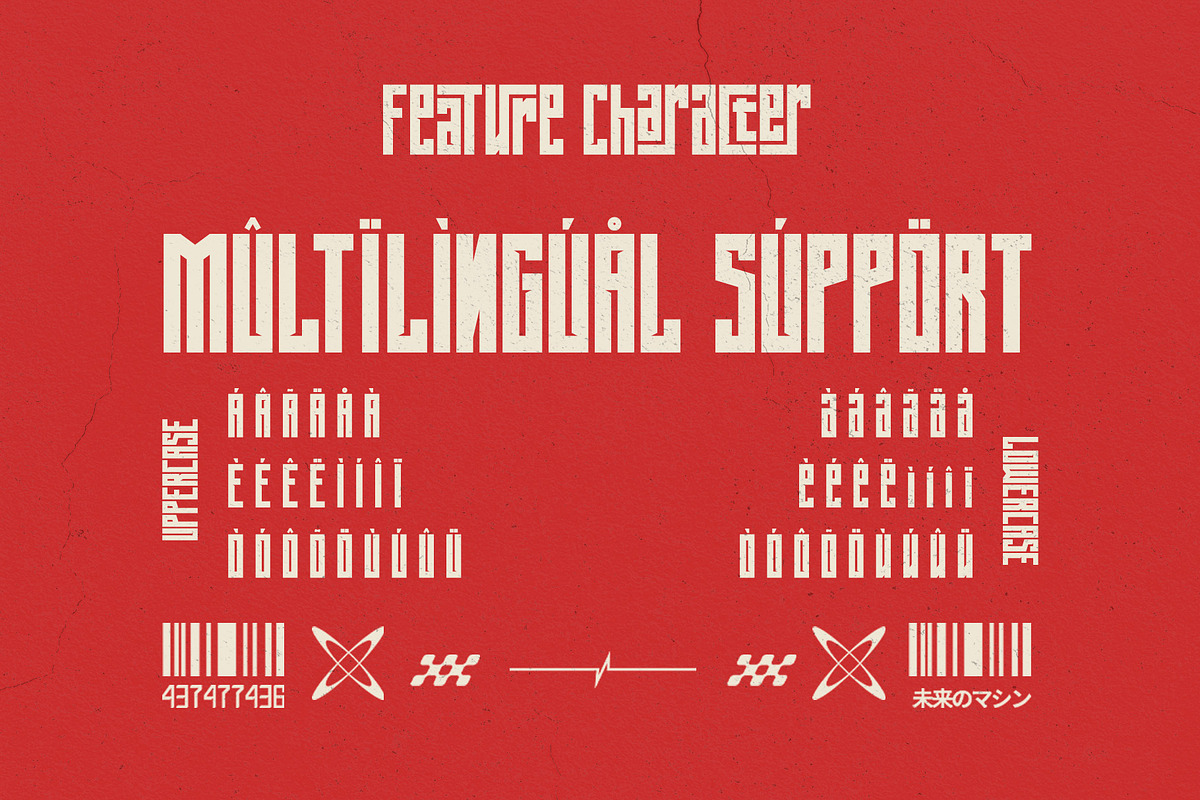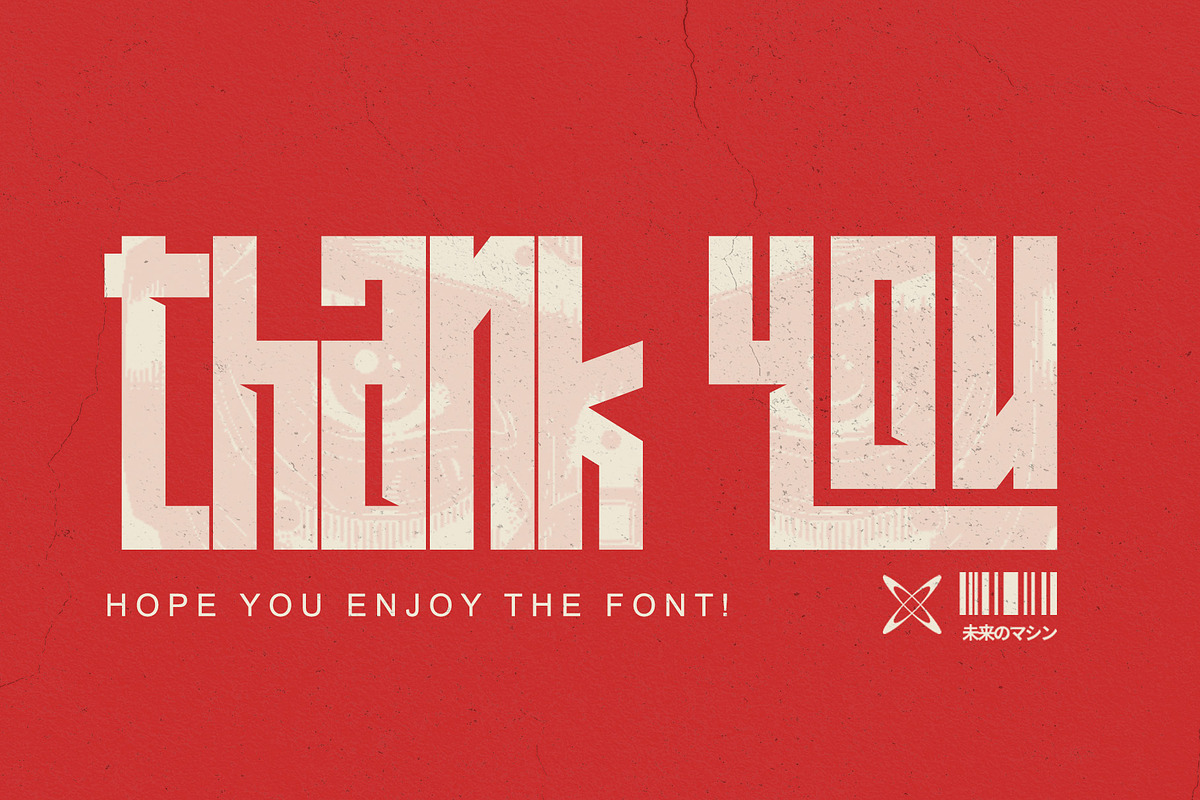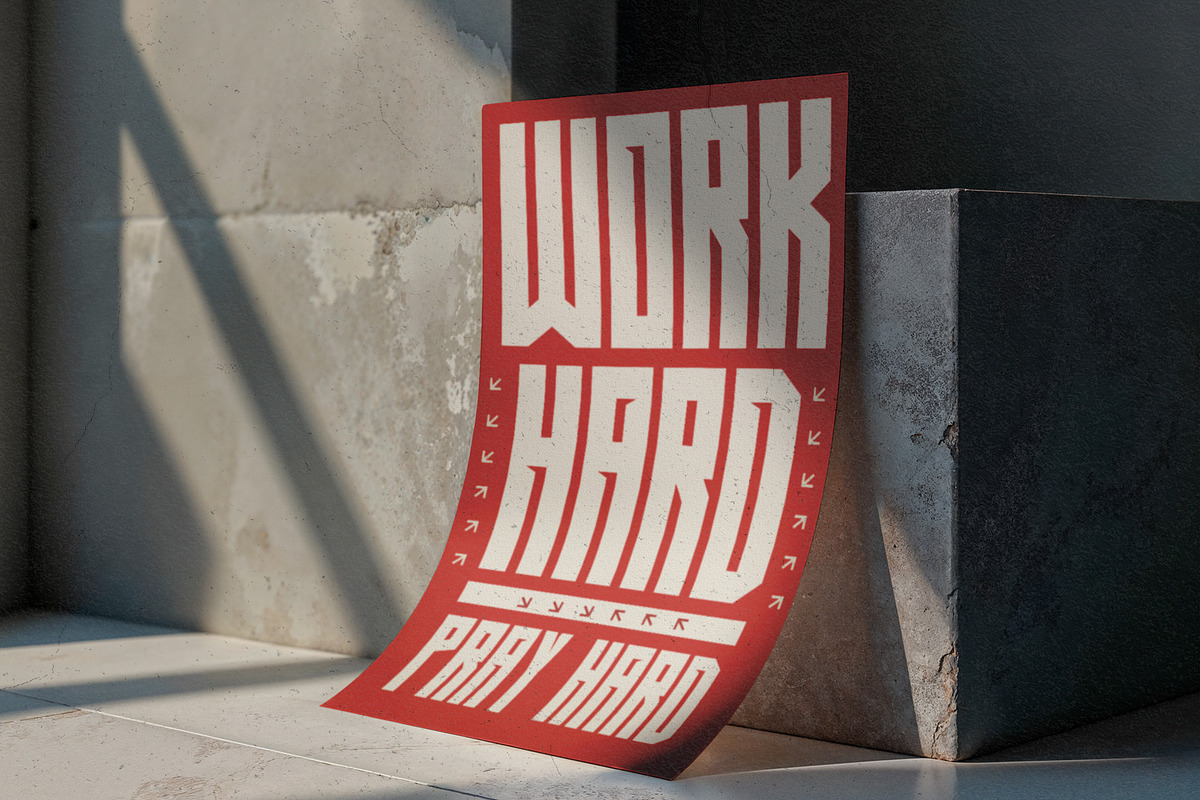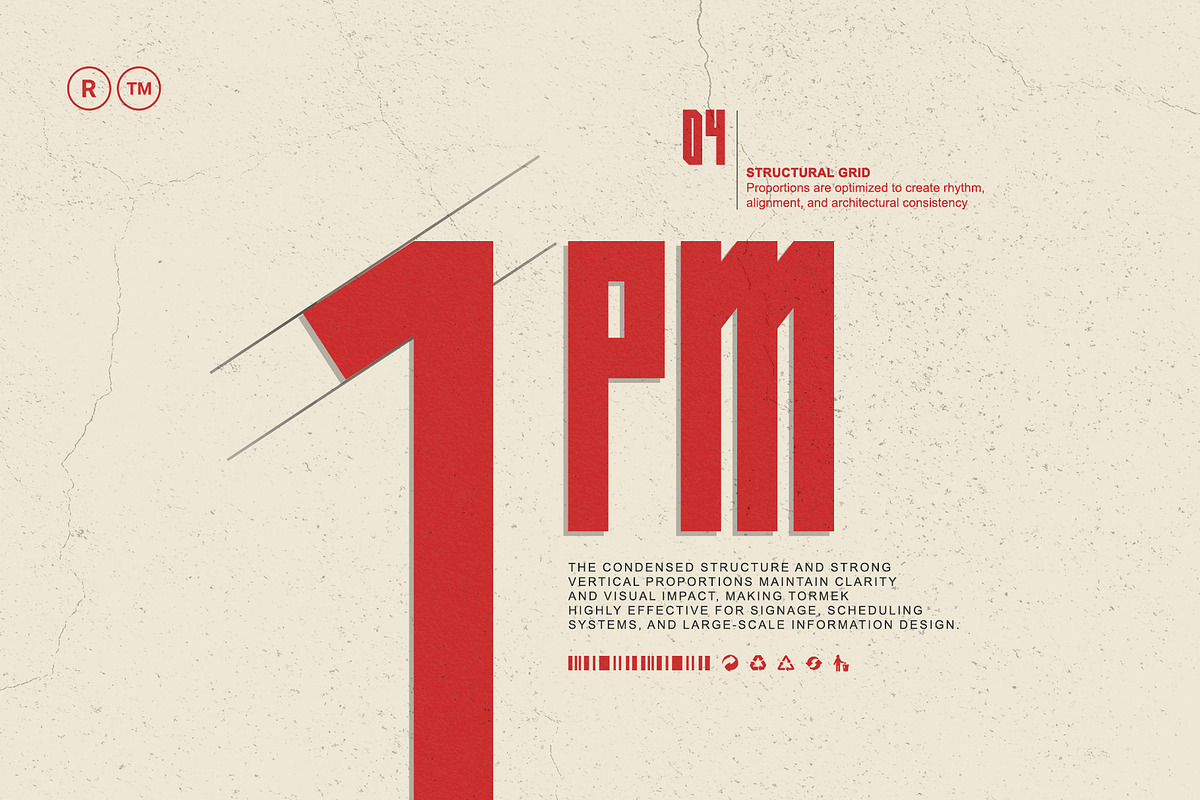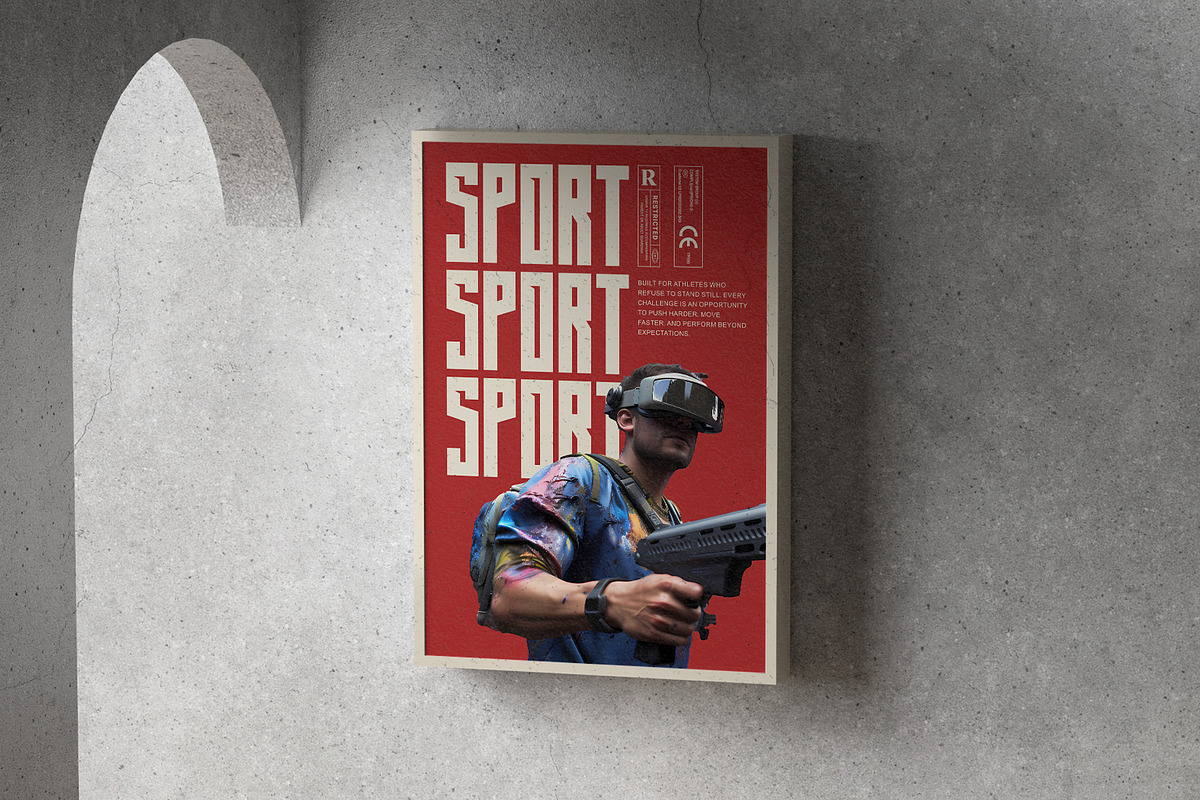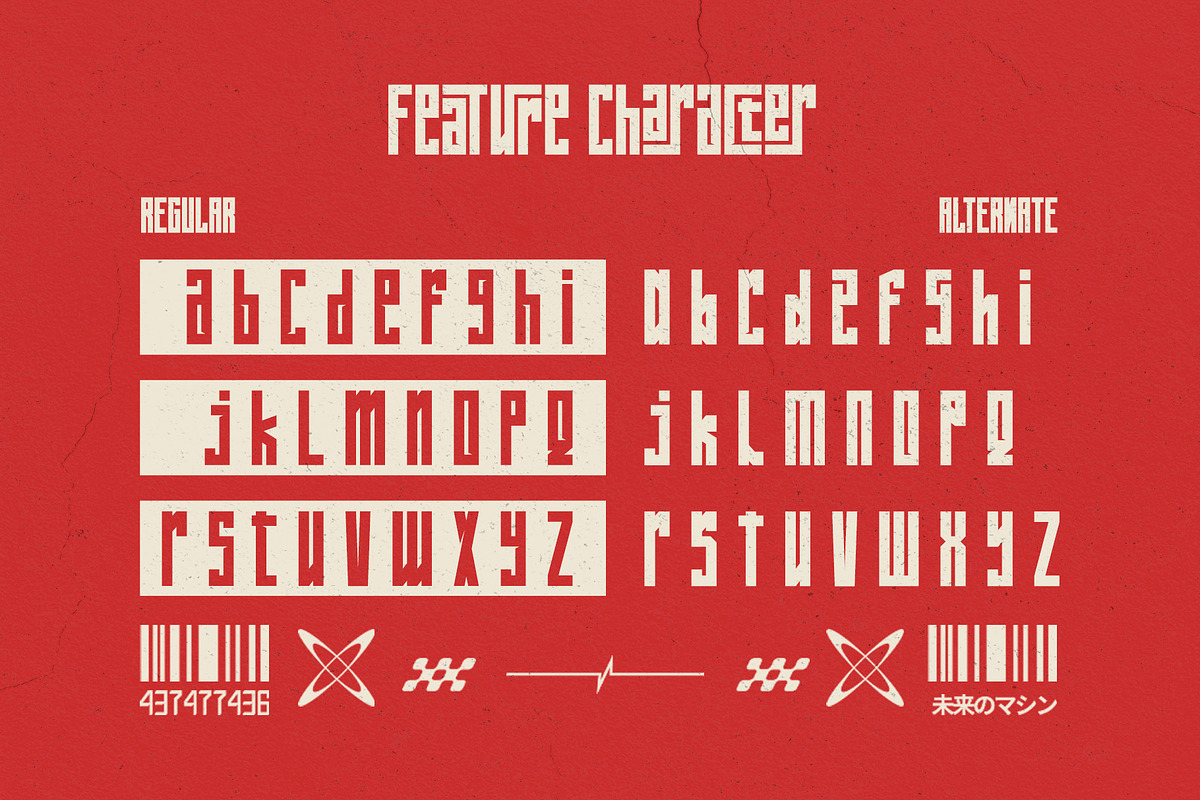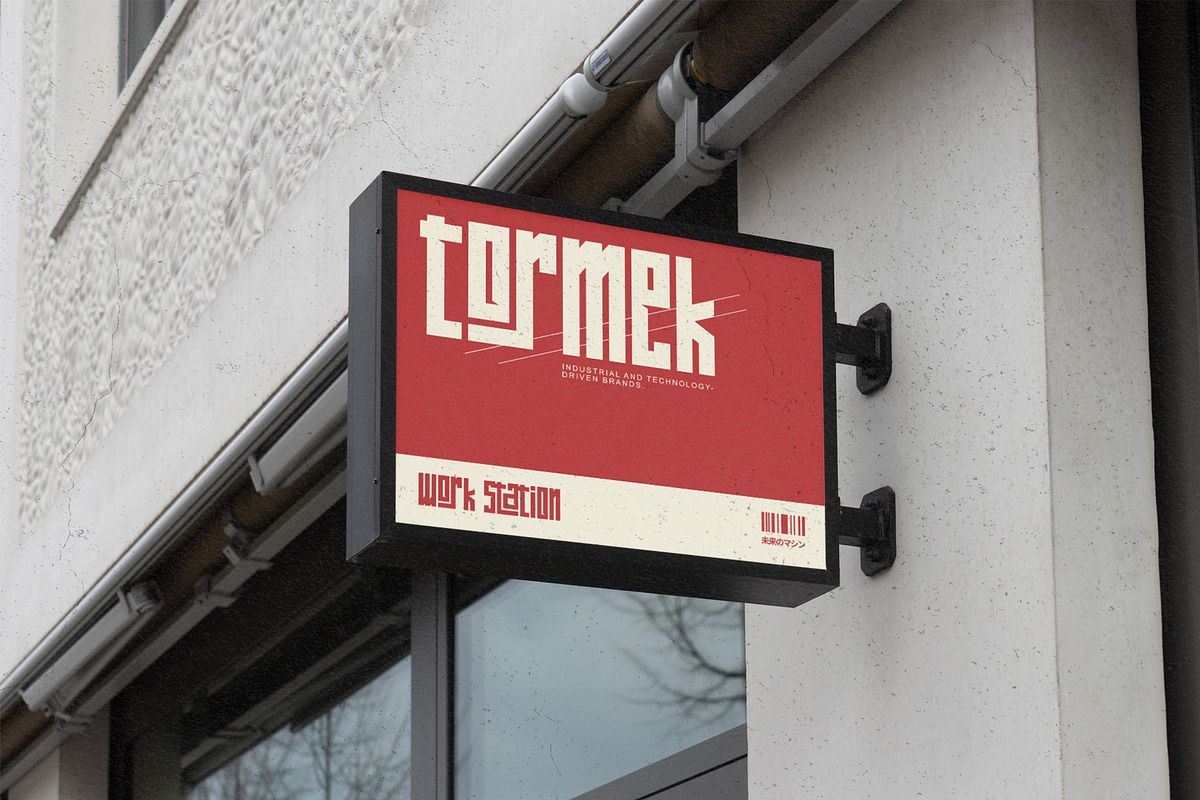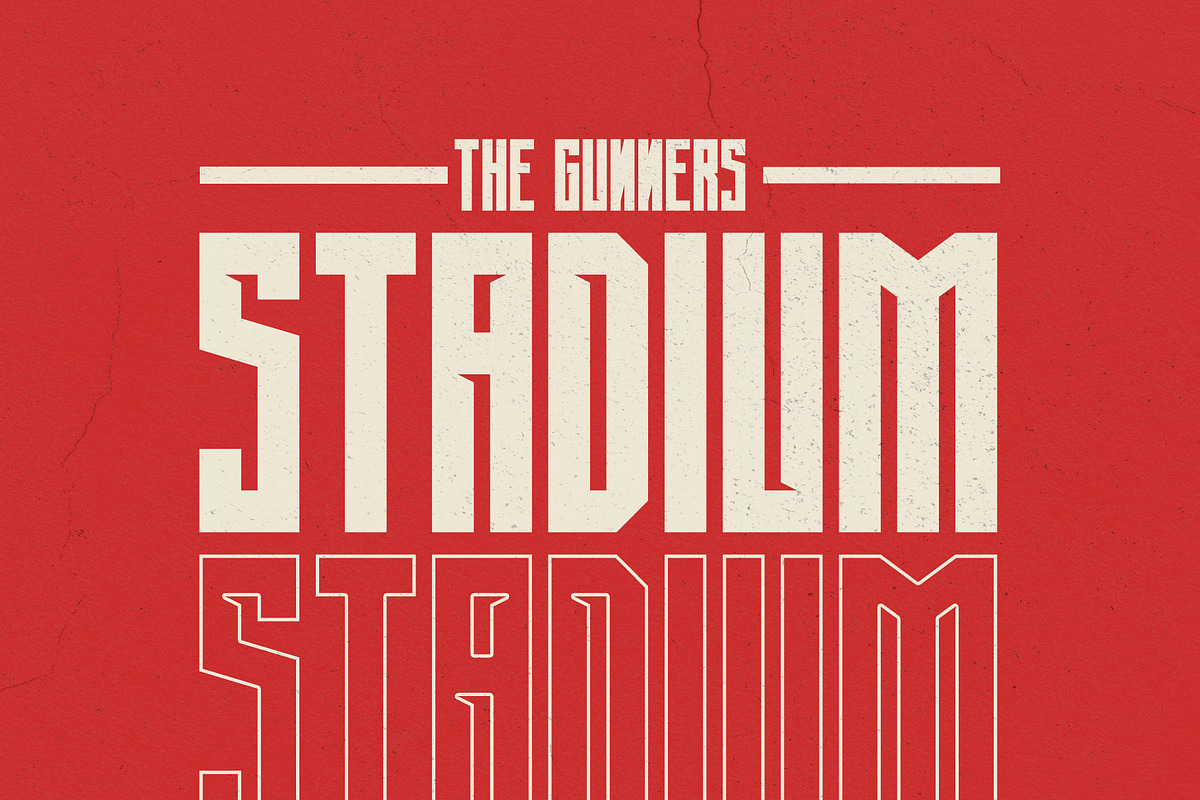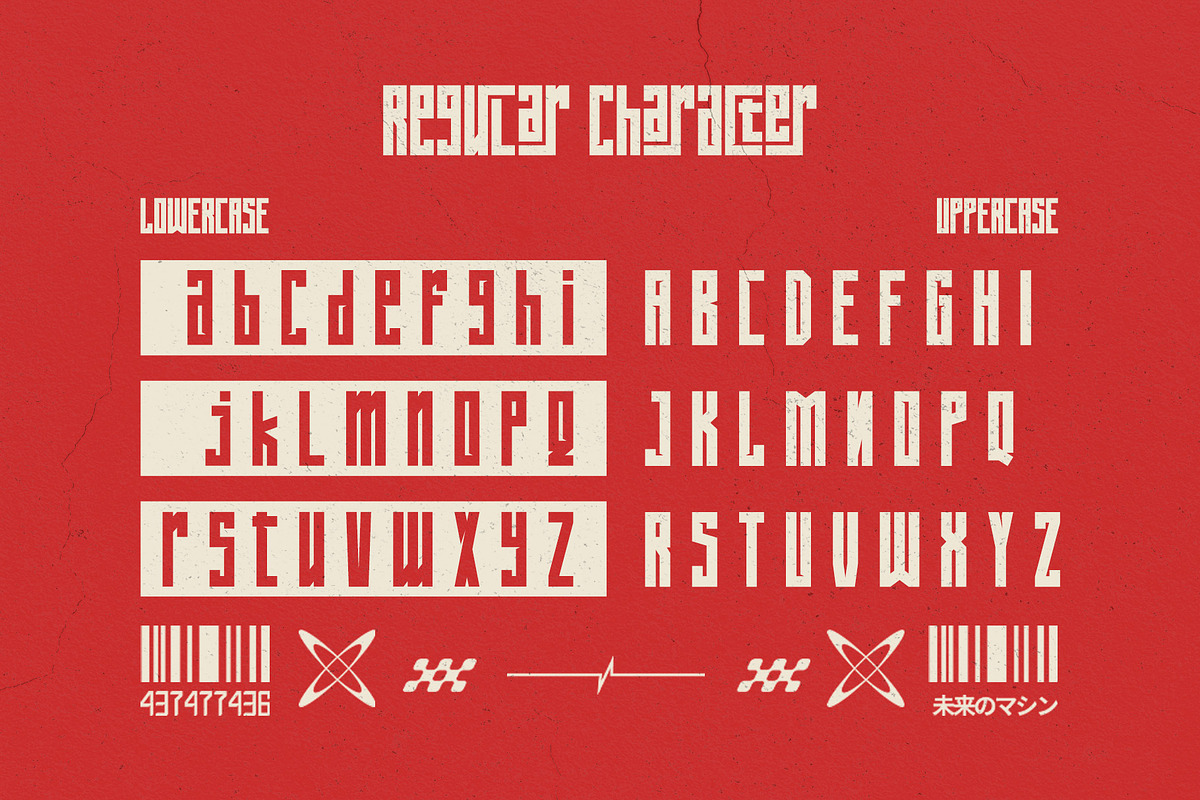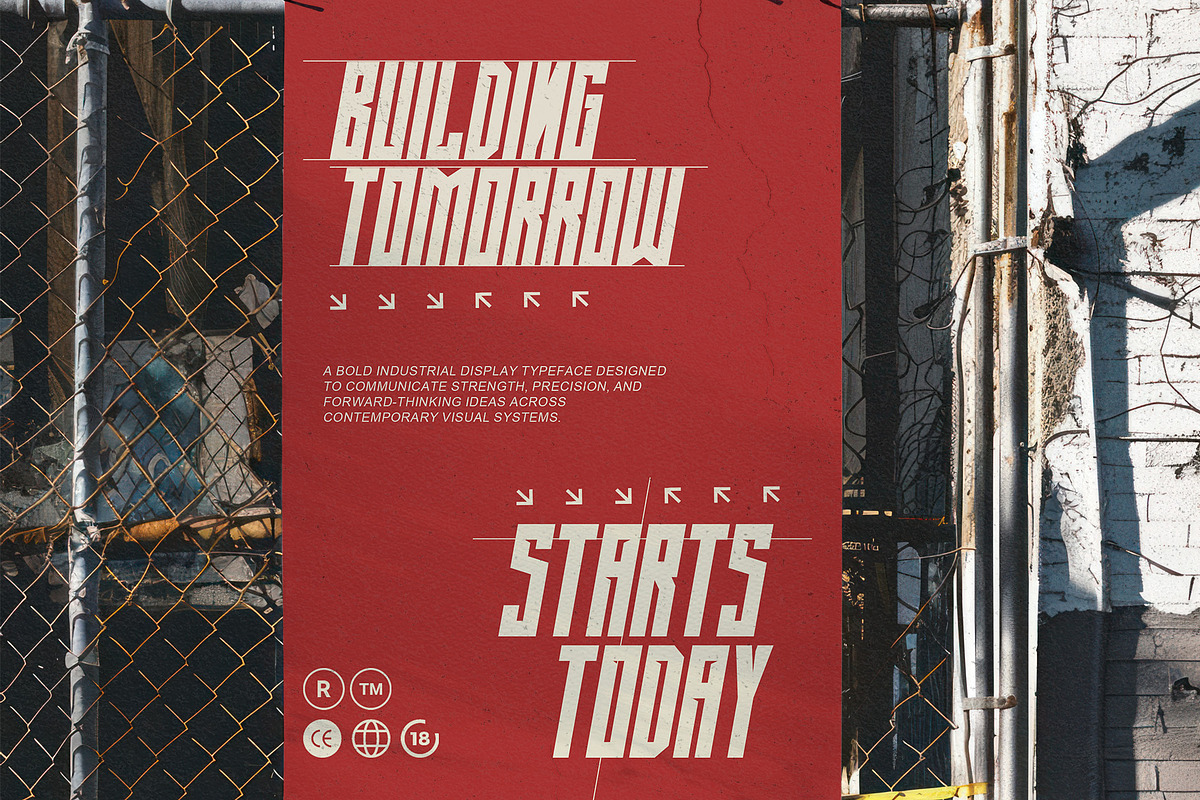
Tormek - Industrial Display Font
Tormek is a bold geometric urban display font built for powerful visual identities, futuristic headlines, and modern industrial design. Its tall modular letterforms, sharp architectural cuts, and distinctive geometric construction give every word a strong, technical, and immediately recognizable appearance.
Inspired by contemporary architecture, urban environments, technology, industrial graphics, and futuristic interface design, Tormek brings structure and impact to logos, posters, packaging, editorial layouts, and digital campaigns. Its condensed proportions make it especially effective for large headlines and space-conscious compositions where typography needs to feel bold without losing clarity.
Tormek combines rigid geometry with creative character details, making it suitable for projects that need to feel modern, experimental, technical, and confidently different. Use it to create striking brand names, architectural titles, motorsport graphics, gaming identities, technology campaigns, cyberpunk posters, product labels, and contemporary fashion designs.
Support multilingual; ä ö ü Ä Ö Ü ß ¿ ¡
uppercase letters
Alternate & Ligature